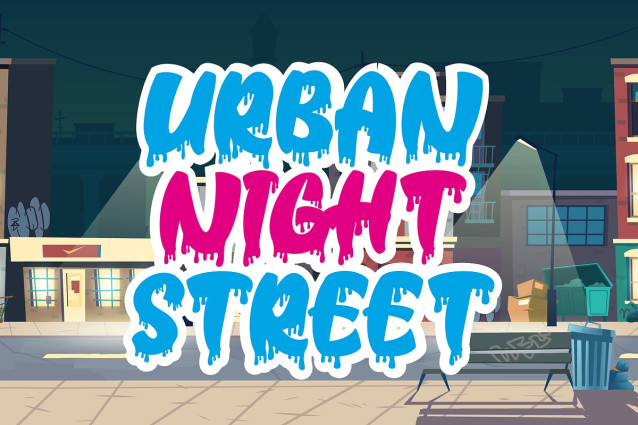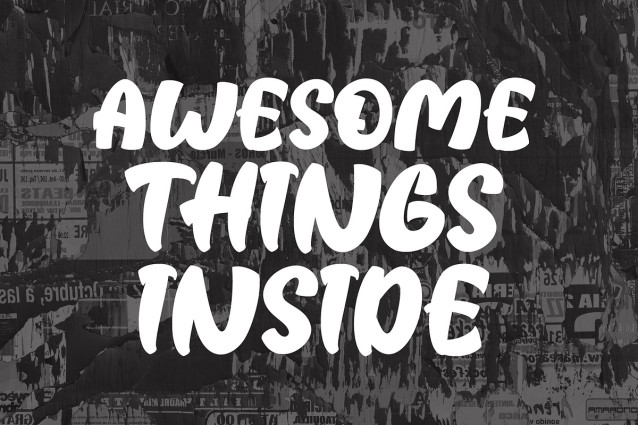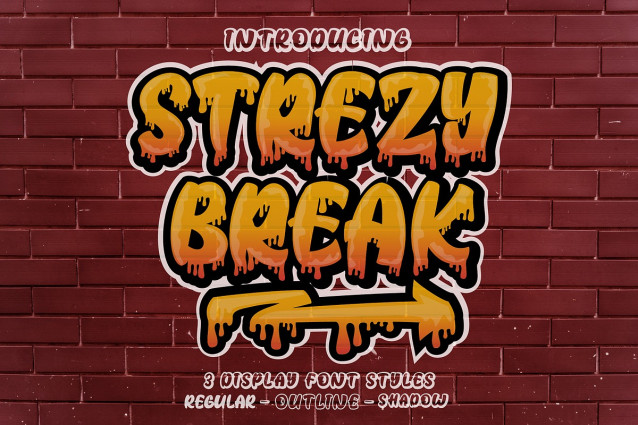
Strezy Break Font
Strezy Break Font is a cool urban style font. Its elegant and cool look makes it the perfect choice for logos, branding, invitations, stationery, wedding designs, social media posts, and so much more